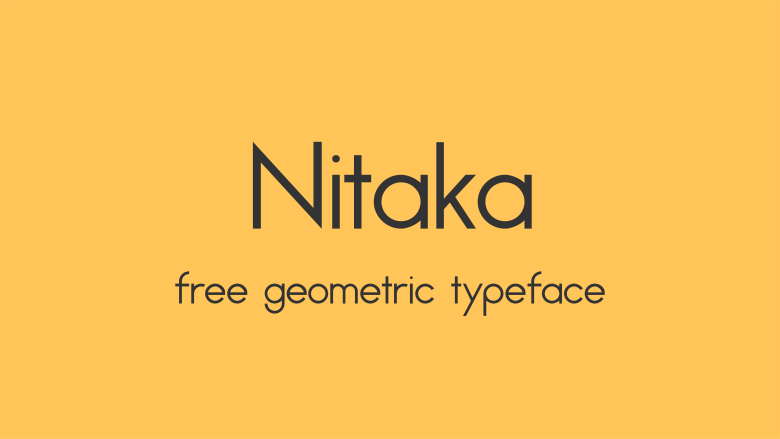
Nitaka Typeface
This is a geometric typeface. I designed almost all letters with true circle as I use circle. And this typeface don’t change its thickness.
“Nitaka” means “2nd hawk”. Hawk is the second luckiest item in the first dream of the year in Japan. I wish it to a lucky item of user.